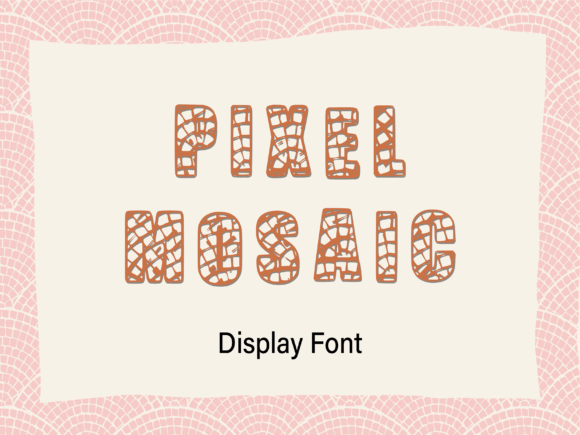
Step into the world of Pixel-Mosaic, a display font family that will transform your Cricut projects into captivating works of art. Crafted with precision and an eye for detail, this font boasts a unique mosaic tile design, where each letter is meticulously constructed from an array of tiny squares. The result is a visually stunning font that exudes a vintage charm and a touch of retro elegance.
Immerse yourself in a bygone era with Pixel-Mosaic, a font that harkens back to the days of handcrafted artistry. Its intricate mosaic tile design adds a layer of texture and depth to your designs, evoking a sense of nostalgia and authenticity. Whether you're creating personalized greeting cards, eye-catching social media graphics, or stunning home décor pieces, Pixel-Mosaic will elevate your projects to new heights.
Unleash your creativity and let Pixel-Mosaic's mesmerizing mosaic tiles captivate your audience. Its unique design is perfect for adding a touch of whimsy and charm to your Cricut creations. From vibrant party invitations to whimsical wall art, Pixel-Mosaic will transform ordinary projects into extraordinary masterpieces.